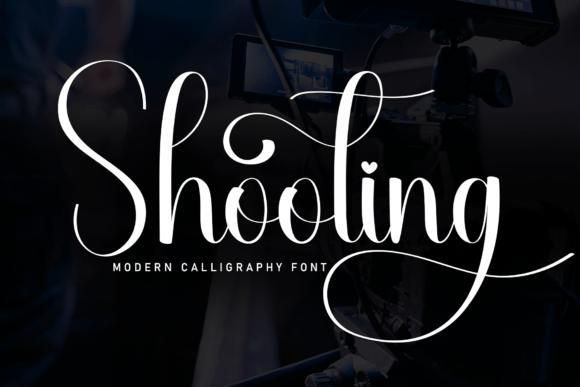
Step into the world of Shooting Font, a captivating handwritten font born from the fusion of elegance and modernity. With its timeless calligraphic charm intertwined with a refreshing contemporary flair, Shooting Font is poised to become your go-to choice for crafting projects that exude sophistication.
Unleash your creativity and let Shooting Font elevate your invitations, greeting cards, social media posts, branding materials, and more to new heights. Its graceful strokes, reminiscent of a skilled calligrapher's hand, will infuse your designs with an air of refined beauty.
Experience the versatility of Shooting Font as it effortlessly adapts to a myriad of design styles. Whether you seek a classic and timeless aesthetic or a modern and edgy vibe, Shooting Font seamlessly blends into your vision, adding a touch of elegance to every project.
Dive into the depths of Shooting Font's character set and discover a treasure trove of OpenType features that unlock endless possibilities for customization. Experiment with ligatures, swashes, and alternates to create mesmerizing typography that captures attention and leaves a lasting impression.